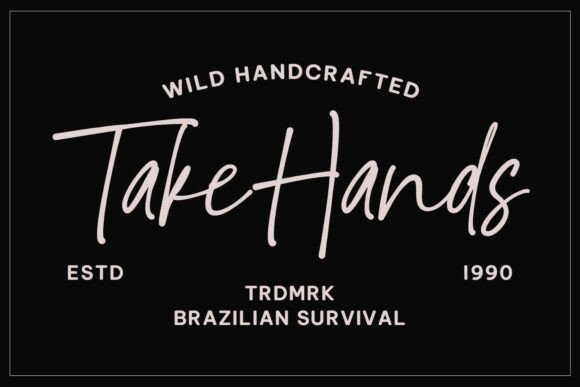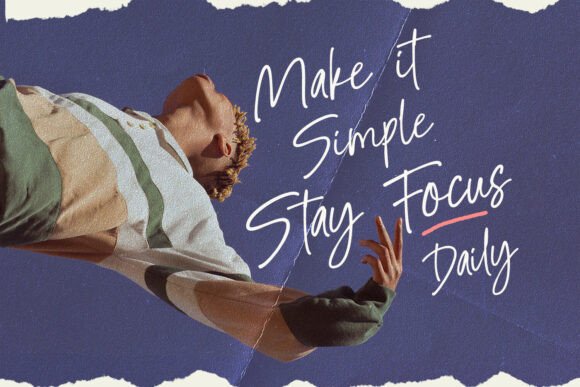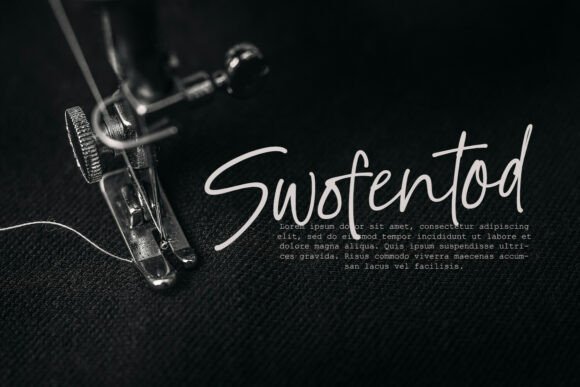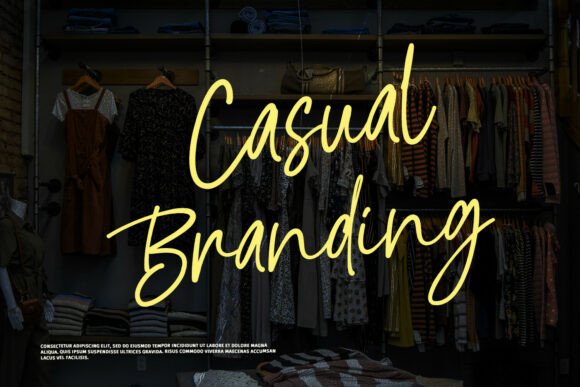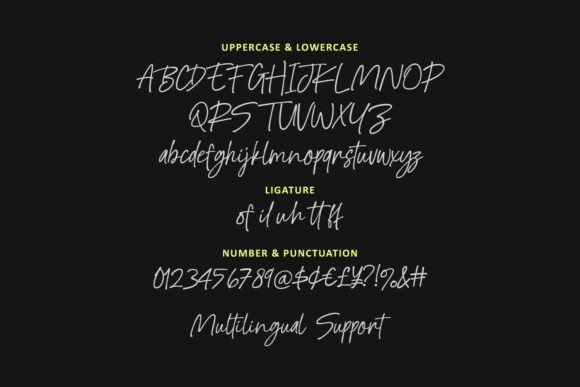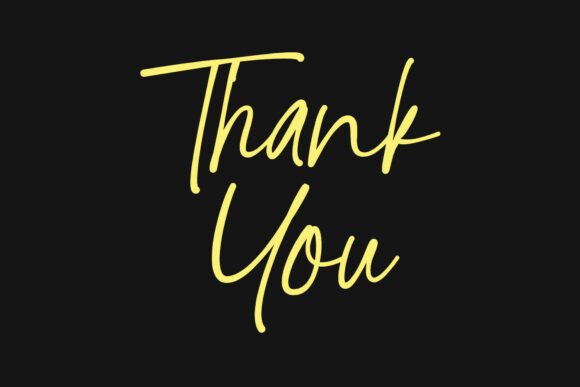
Introduction to Opily Ruhofa Font
Opily Ruhofa is a wild, handcrafted signature font that perfectly balances elegance with a raw, casual energy.
This font features natural flowing strokes and stylish ligatures that mimic authentic handwriting It is the ideal choice for branding projects, luxury fashion labels, lifestyle photography overlays, and modern logos looking for a personal, human touch.
Key Features of Opily Ruhofa Font